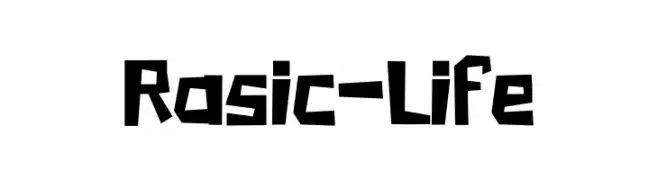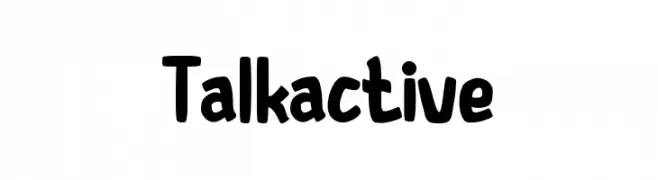
A bold, rugged, and hand-drawn font with a vintage Western feel.
A bold, angular font with a modern, edgy, and hand-drawn aesthetic.
A playful, bold, and hand-drawn style font with rounded, irregular characters.
A playful, bold, hand-drawn font with a casual and friendly style.
A bold, angular font with a geometric and modern style.
A bold, geometric font with a modern and edgy style.
A playful, bold font with rounded, bubbly characters.
A bold, rounded font with a playful and friendly appearance.
A bold, playful font with rounded, bubbly characters.